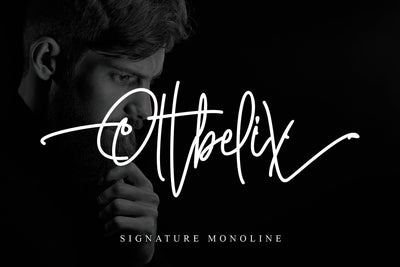
Ottbelix
Ottbelix is signature monoline font. Clean and elegant, cursive, legible script font which can be used on a wide variety of designs such as: headlines, titles, headings, logos, branding, posters, invitations, books, and any other creative design. This font is PUA encoded which means you can access all of the cute glyphs and swashes with ease! It also features a wealth of special features including alternate glyphs and ligatures.
- Many features: Uppercase alternate, Lowercase Alternate, swash & Ligature
- Support multilingual; ä ö ü Ä Ö Ü ß ¿ ¡